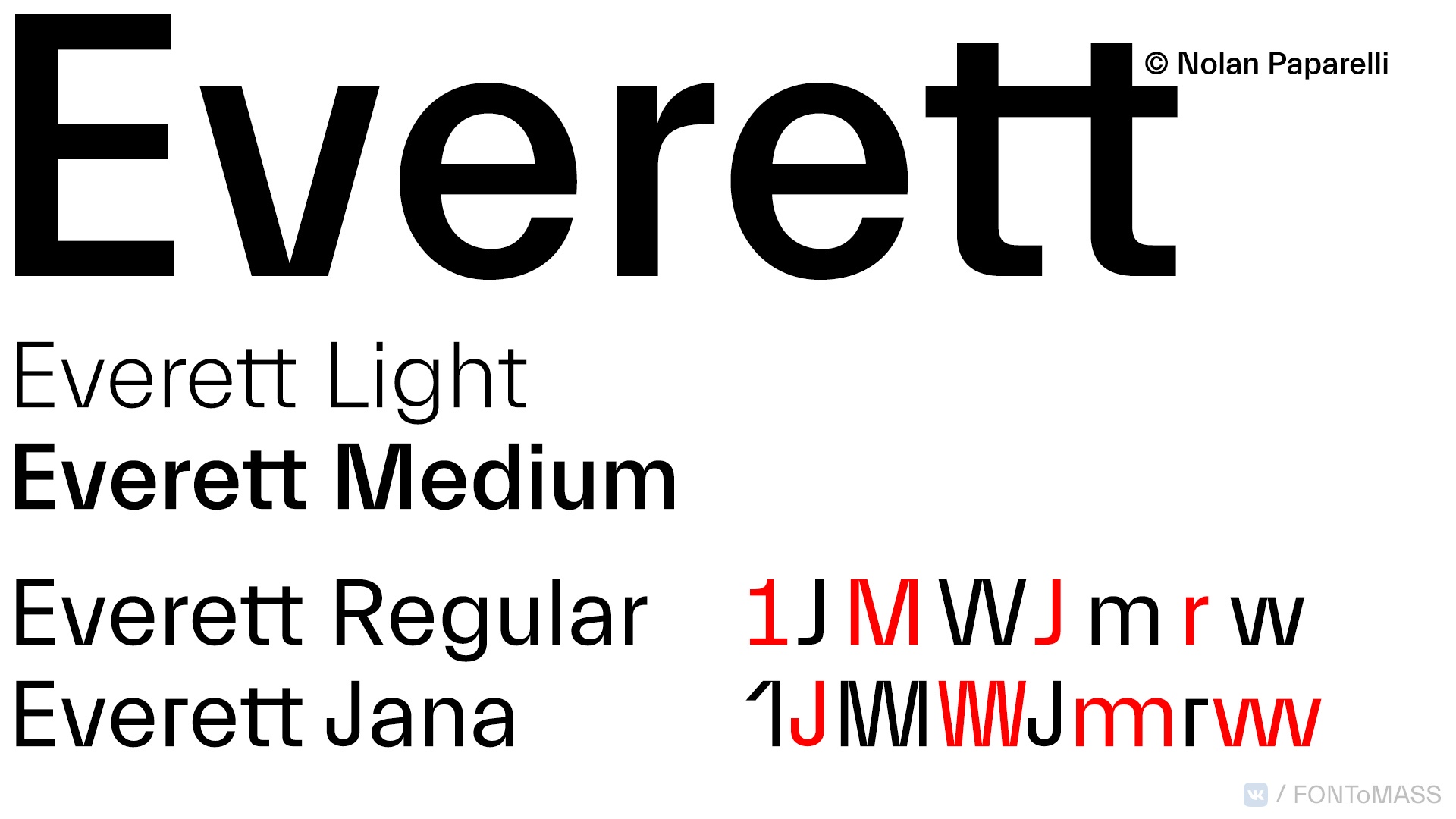
Everett Font is perfect for brand identity design, logo creation, headline typography, poster design, packaging labels, signage systems, digital advertising, product branding, retail displays, and modern web applications.
Everett Font is exciting because it seamlessly blends contemporary elegance with timeless readability, featuring distinctive character shapes and refined proportions that create memorable visual impact while maintaining excellent functionality across diverse design applications. Its balanced structure and unique personality make it an ideal choice for brands seeking differentiation without sacrificing professionalism.
The Everett Font family includes Light, Regular, Medium, Bold, Extra Bold weights, Italic companions for each weight, Condensed versions, Extended styles, and Display variations, offering designers comprehensive flexibility for cohesive typographic hierarchies and brand system development.
Everett Font Free Download delivers exceptional versatility for modern design challenges, combining sophisticated letterforms with practical functionality that works beautifully in both print and digital environments. This carefully crafted typeface features optimized spacing, professional kerning, and distinctive character details that enhance brand recognition while ensuring optimal readability across all sizes and applications.
Whether you're developing startup identities, refreshing established brands, designing marketing materials, or creating editorial layouts, Everett Font provides the perfect balance of character and clarity. Its contemporary appeal resonates particularly well with creative industries, technology companies, lifestyle brands, and service businesses that value modern aesthetics and professional presentation.
Perfect for graphic designers, brand consultants, marketing teams, and creative directors, this font offers the distinctive qualities needed for standout brand communication. The typeface's versatility makes it equally effective for large-scale environmental graphics, detailed text composition, and everything in between, maintaining visual consistency and quality performance.
Everett Font includes comprehensive language support, advanced typographic features, and carefully refined details that ensure professional results in demanding design situations. Its systematic approach to weight relationships and style coordination makes it invaluable for complex brand systems and multi-platform applications. Transform your creative projects with Everett Font Free Download and discover the perfect typography solution for contemporary design excellence.